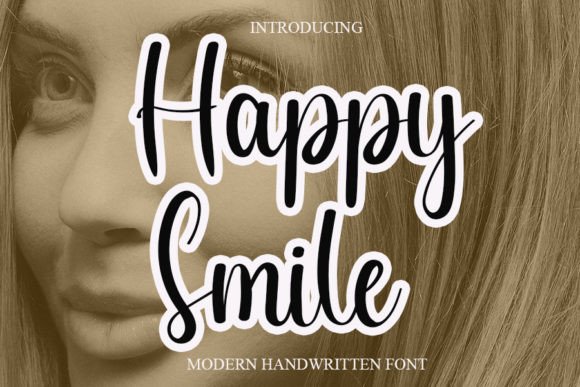
Immerse yourself in the world of Happy Smile Font, a stunning script font that exudes charm and elegance in equal measure. This mesmerizing creation by NYA Letter is more than just a font; it's an artistic expression that brings life to your digital designs. With its modern vibe and flawless form, Happy Smile Font elevates your projects to new heights, leaving a lasting impression on your audience.
Crafted with meticulous attention to detail, Happy Smile Font strikes the perfect balance between thin and thick strokes, creating a visual harmony that is both captivating and timeless. Its varied character set adds a touch of playfulness and individuality, making it the perfect choice for a wide range of design projects.
As a Font For Business Letter, Happy Smile Font exudes professionalism and sophistication. Its clean lines and legible letterforms ensure that your business messages are communicated with clarity and impact. Whether you're creating brochures, presentations, or marketing materials, this font adds a touch of polish that sets your brand apart.
Beyond the realm of business, Happy Smile Font shines in personal projects as well. Its enchanting style brings a touch of whimsy and joy to invitations, greeting cards, and social media posts. Imagine your words dancing across the screen, imbued with the warmth and charm of Happy Smile Font.
Feel the creative energy surge as you let Happy Smile Font transform your designs. From heartfelt letters to eye-catching advertisements, this font is a versatile tool that empowers you to express yourself fully. Don't just settle for ordinary fonts; embrace the magic of Happy Smile Font and watch your projects come alive.